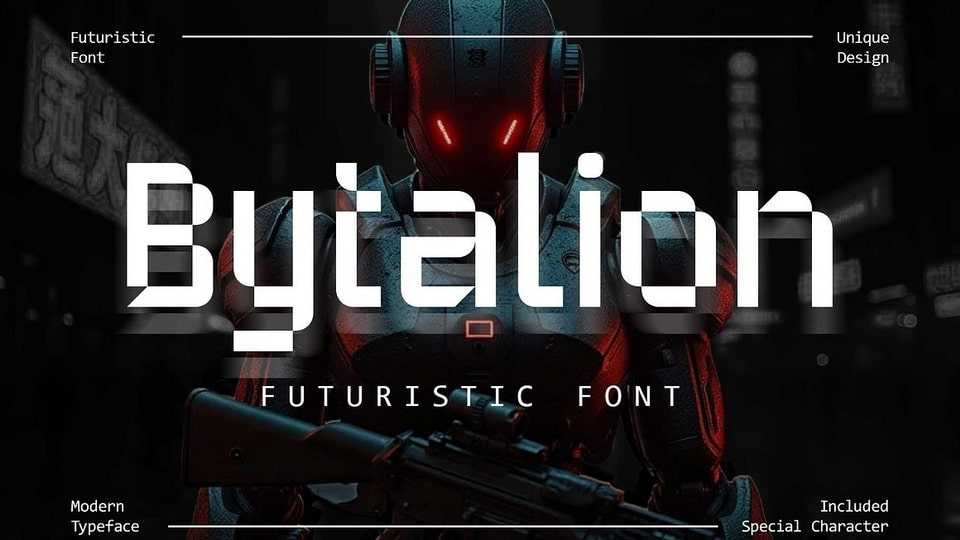
Download Bytalion font, a futuristic typeface with a unique geometrical design. Combining rectangular and curvy shapes, this font takes you on a sci-fi journey straight out of a movie.